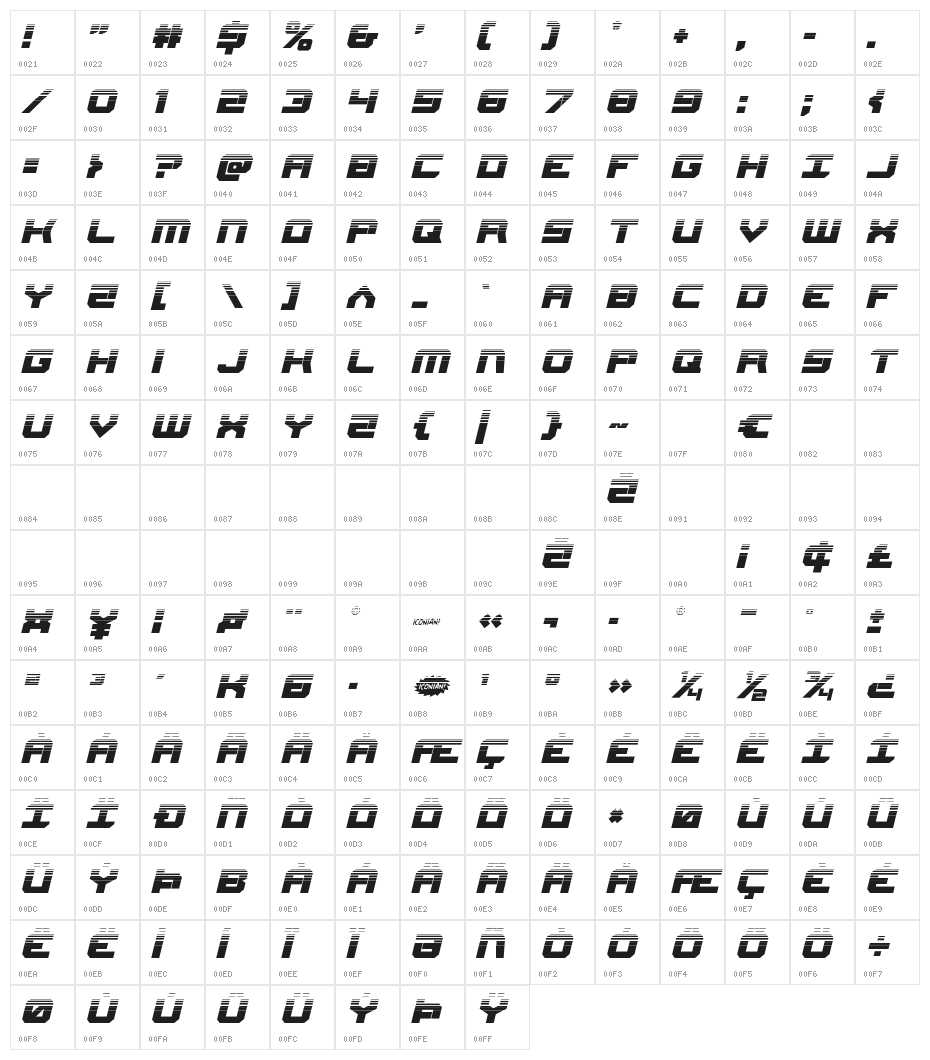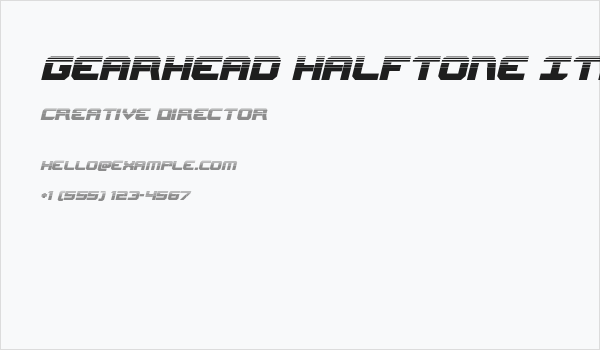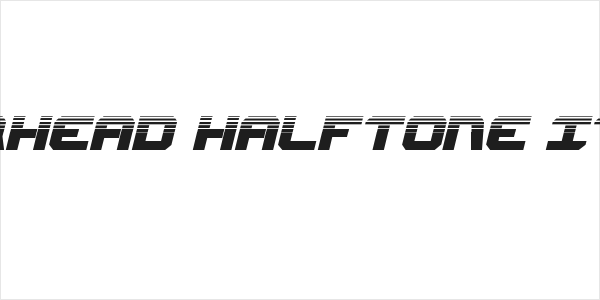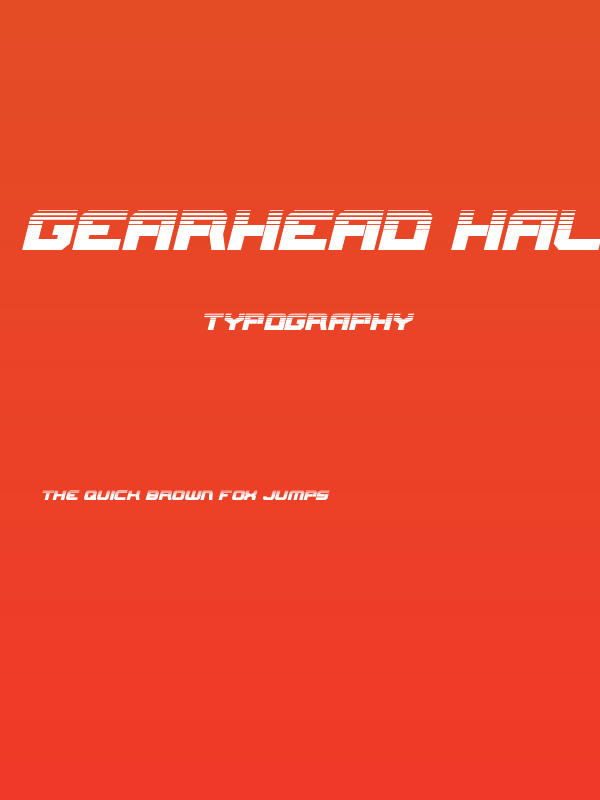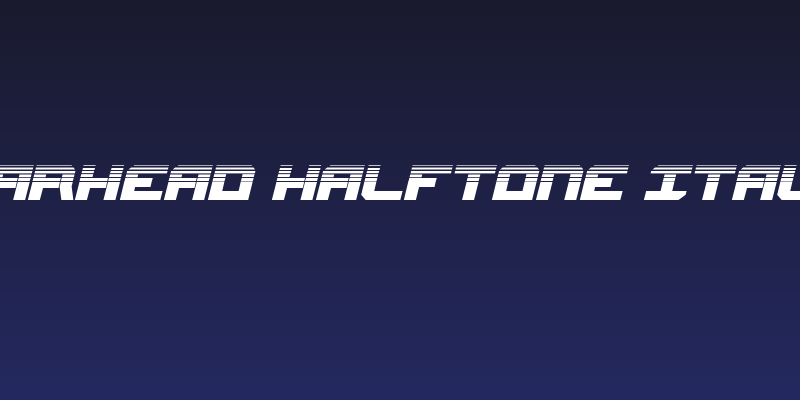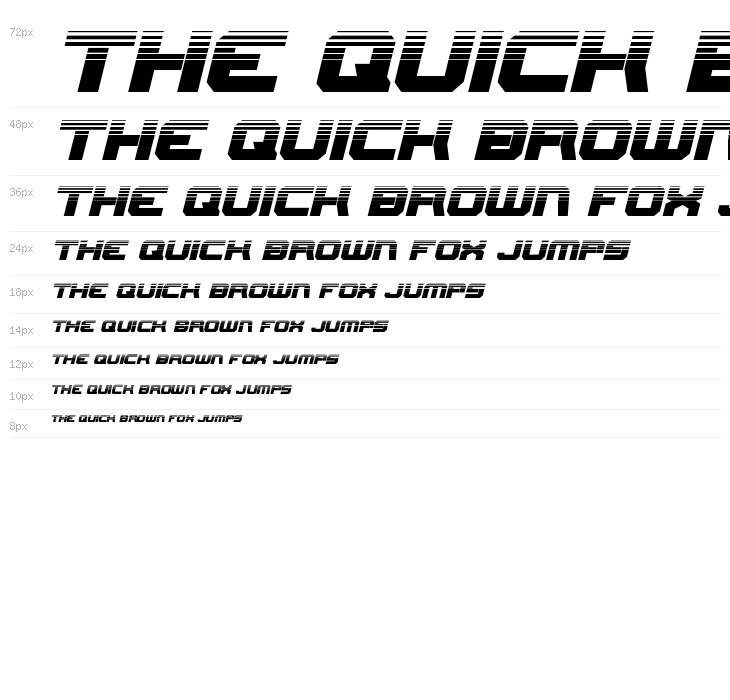
Gearhead Halftone Italic Font
Gearhead Halftone Italic Description
This font features a bold, futuristic design with a halftone effect that gives it a dynamic and energetic appearance. The characters are angular and geometric, with a strong emphasis on horizontal lines that create a sense of movement. The italic style adds to the forward-leaning, progressive look, making it ideal for projects that require a modern and edgy aesthetic. The uppercase and lowercase letters maintain a consistent style, while the numbers and special characters are designed to complement the overall theme. The font's unique halftone pattern adds texture and depth, making it stand out in any design.
| Proposed Projects | Ideal for sci-fi movie posters, tech company branding, video game titles, and sports event promotions. |